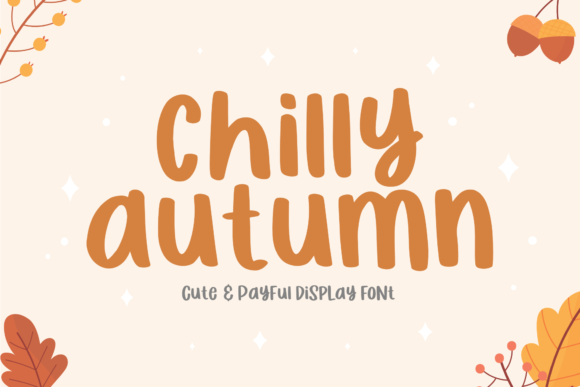
Journey into a world of whimsy and delight with Chilly Autumn Font, a captivating display font that sparks imagination and brings joy to your creative projects. This playful font is a masterpiece crafted by Hayletter Creative, designed to add a touch of magic to your designs, games, and visual creations.
Picture this: a comic strip bursting with life, its characters dancing across the panels in the vibrant energy of Chilly Autumn. Words take on a new dimension, each letter a playful wink that invites readers into a world of laughter and adventure. The font's charming curves and delightful strokes bring a sense of movement and energy to your designs, making them impossible to ignore.
Beyond comic strips, Chilly Autumn Font shines in a myriad of creative endeavors, from children's games to whimsical quotes, captivating titles, and eye-catching brand names. Book covers and posters are transformed into enchanting works of art, as the font's playful nature captures the essence of imagination and wonder.
With Chilly Autumn Font, your creations take on a unique personality, inviting audiences to embark on a journey of discovery. Its charm and versatility make it a perfect choice for designers seeking to capture the essence of joy and lightheartedness in their work. Embrace the magic of Chilly Autumn, and let your creativity soar to new heights.